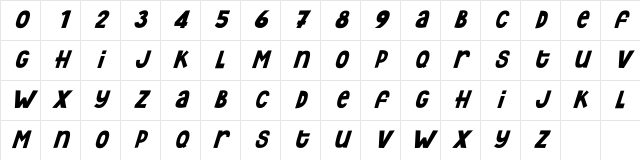
Hey Elsie Regular Free Font
Hey Elsie Regular
Designer: Ari Liari
Design Context for Hey Elsie
Hey Elsie is a composed and adaptable typeface that performs quietly and consistently across a wide range of design contexts.